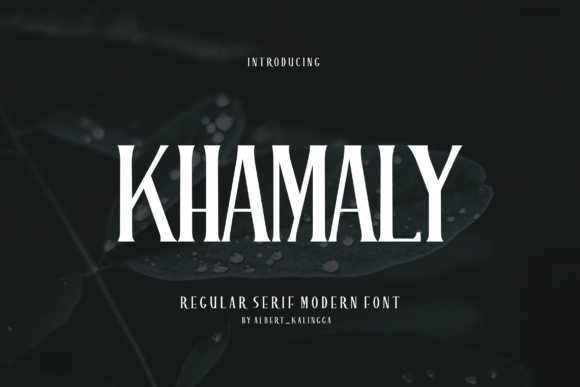
Introducing Khamaly Font, the ultimate choice for those seeking the best font for modern websites. Crafted by the talented kalingga.albert, this elegant and bold serif font is here to captivate your imagination and elevate your design game to new heights.
With Khamaly Font, prepare to embark on a creative journey like no other. Its versatility knows no bounds, allowing you to effortlessly bring your wildest design ideas to life. Whether you're designing stunning wedding invitations, curating beautiful stationary art, or creating eye-catching social media posts, Khamaly Font will be your trusted companion every step of the way.
Fall in love with the enchanting curves and enticing details that make Khamaly Font truly exceptional. Each character exudes a sense of sophistication and elegance, instantly captivating anyone who lays eyes upon it. Let this font effortlessly convey your message, leaving a lasting impact on your audience.
Unleash your creativity with Khamaly Font's extensive range of weights and styles. Whether you prefer a bold and commanding look or a subtle and refined touch, this font has got you covered. Its versatility enables seamless integration into various design projects, allowing you to effortlessly achieve the desired effect.
Khamaly Font is more than just a typeface; it's an experience. Its flawless legibility ensures that your message is delivered with utmost clarity, captivating your audience from the moment they set eyes on it. Whether it's for captivating headlines, engaging body text, or striking call-to-action buttons, Khamaly Font is the perfect choice to make your content shine.
Don't settle for mediocrity when you can elevate your design with Khamaly Font. Stand out in the crowded digital landscape, leaving a lasting impression on your website visitors, customers, and followers. With its bold and captivating presence, this font will effortlessly set you apart from the competition.